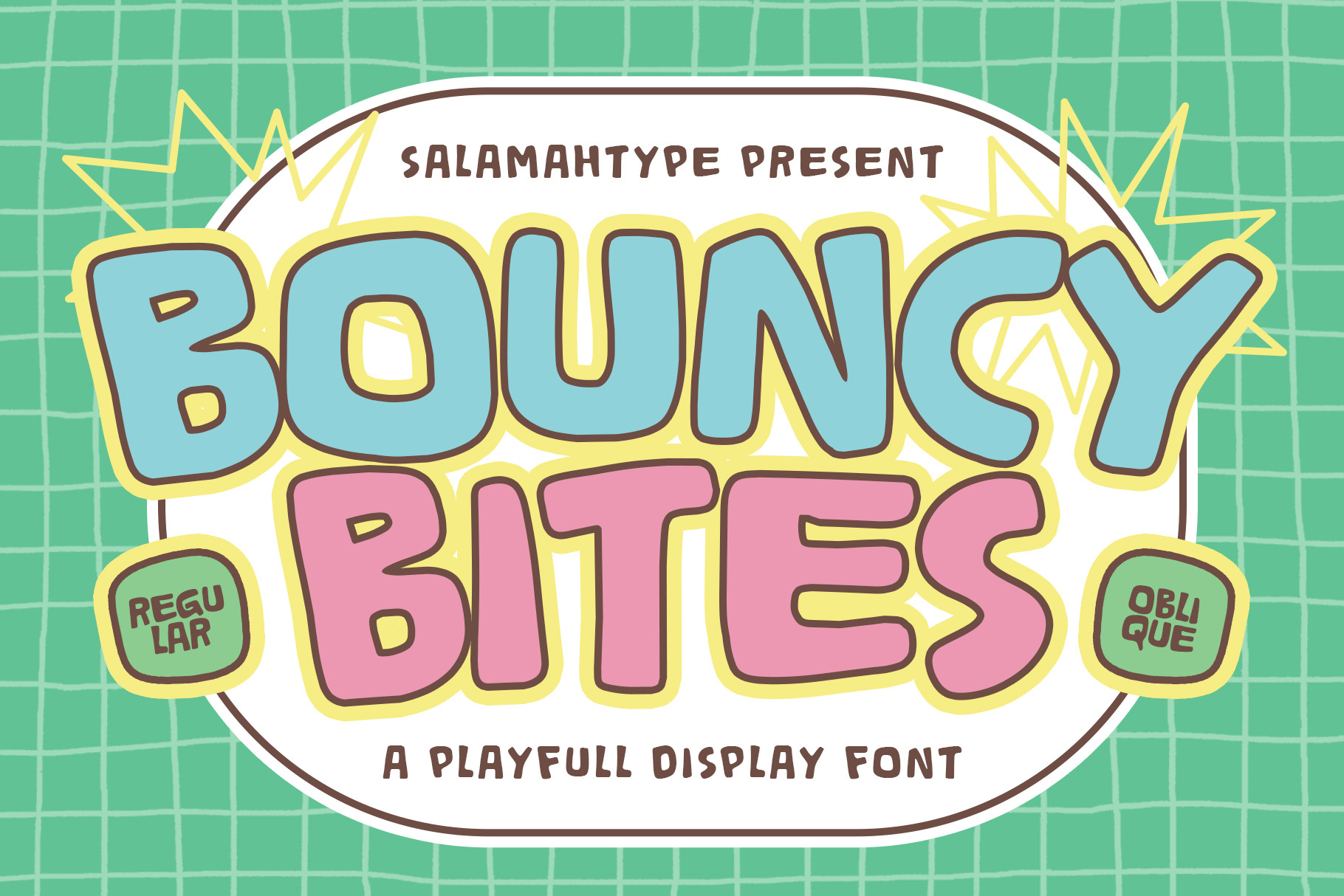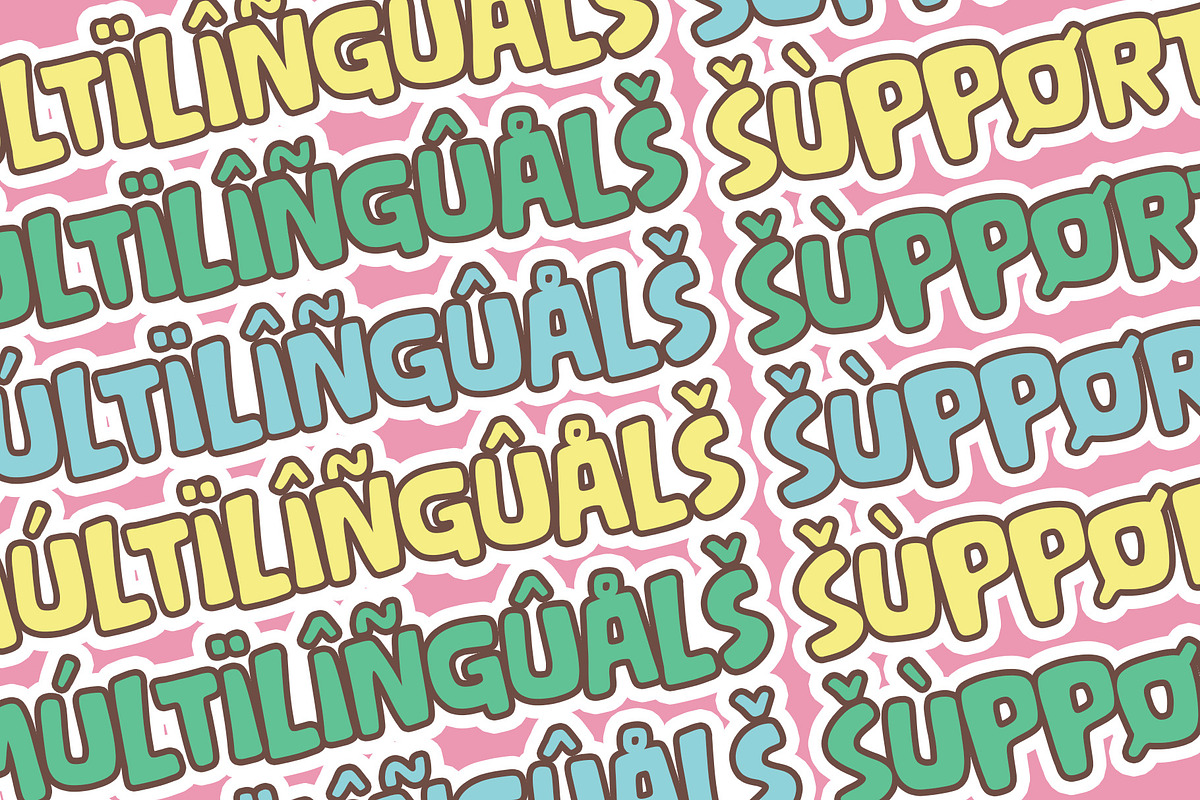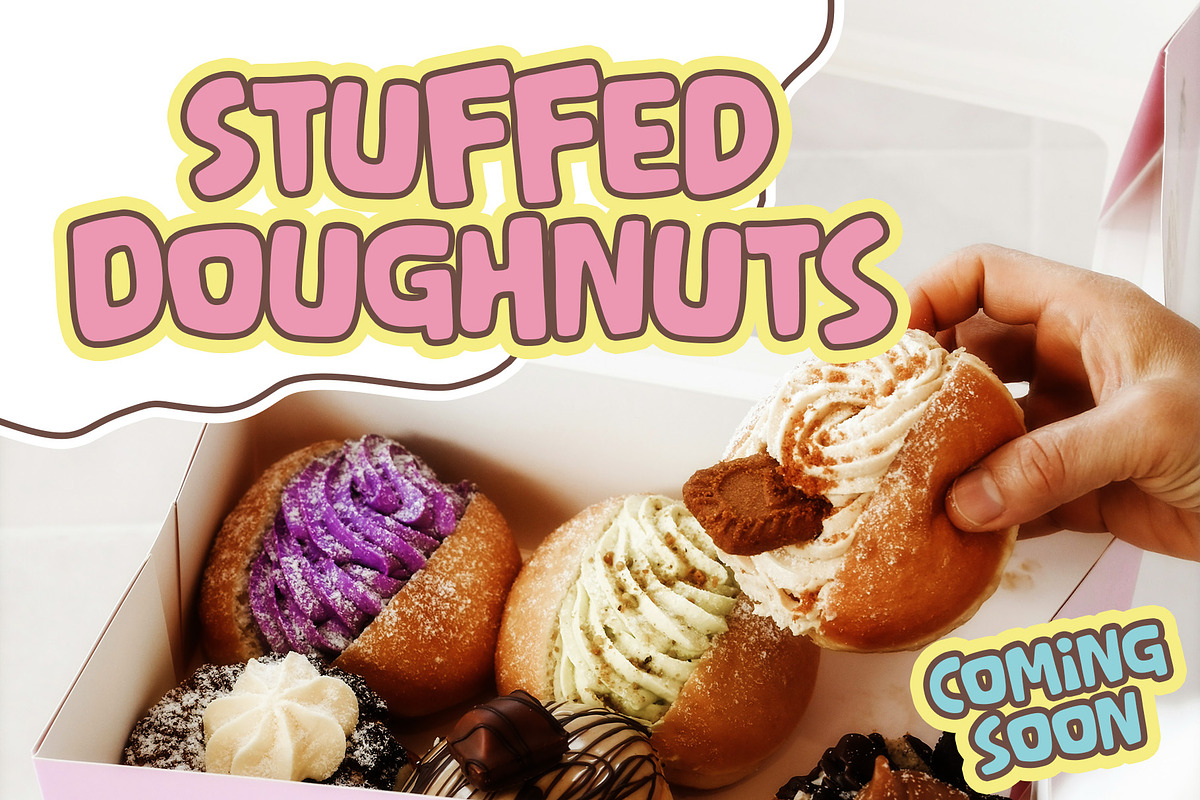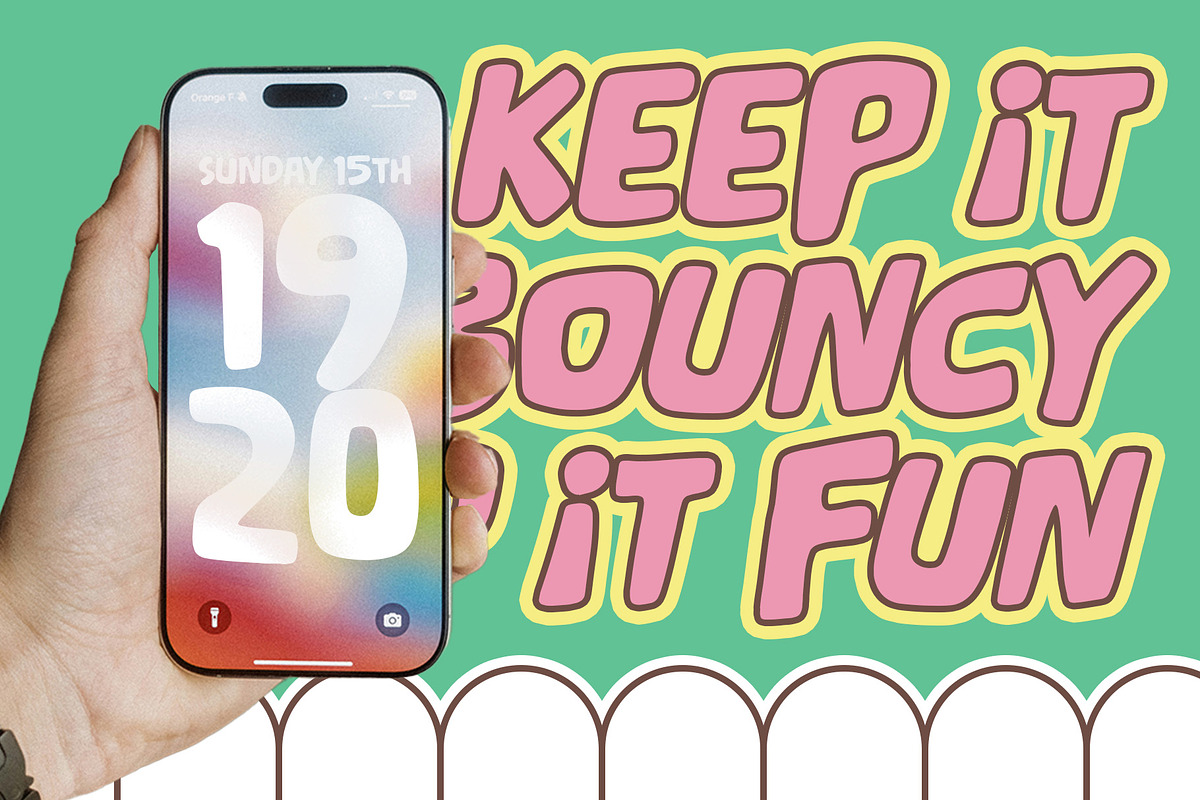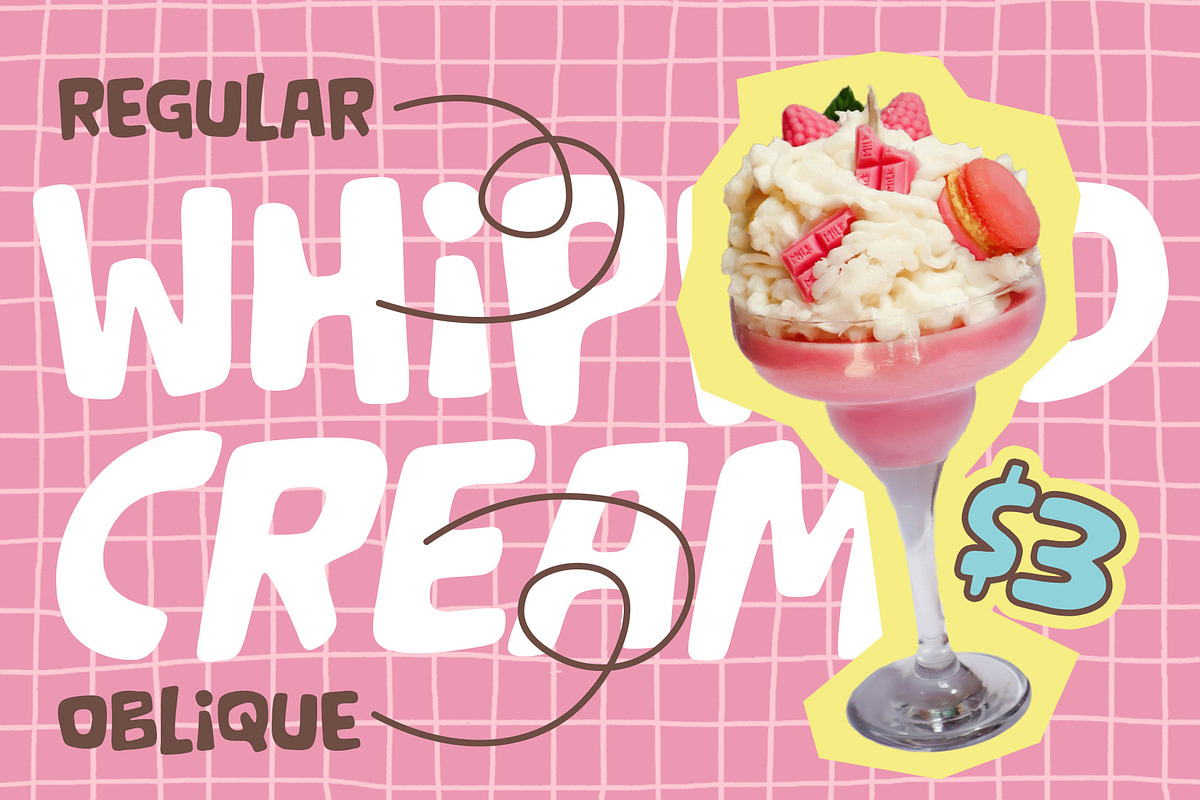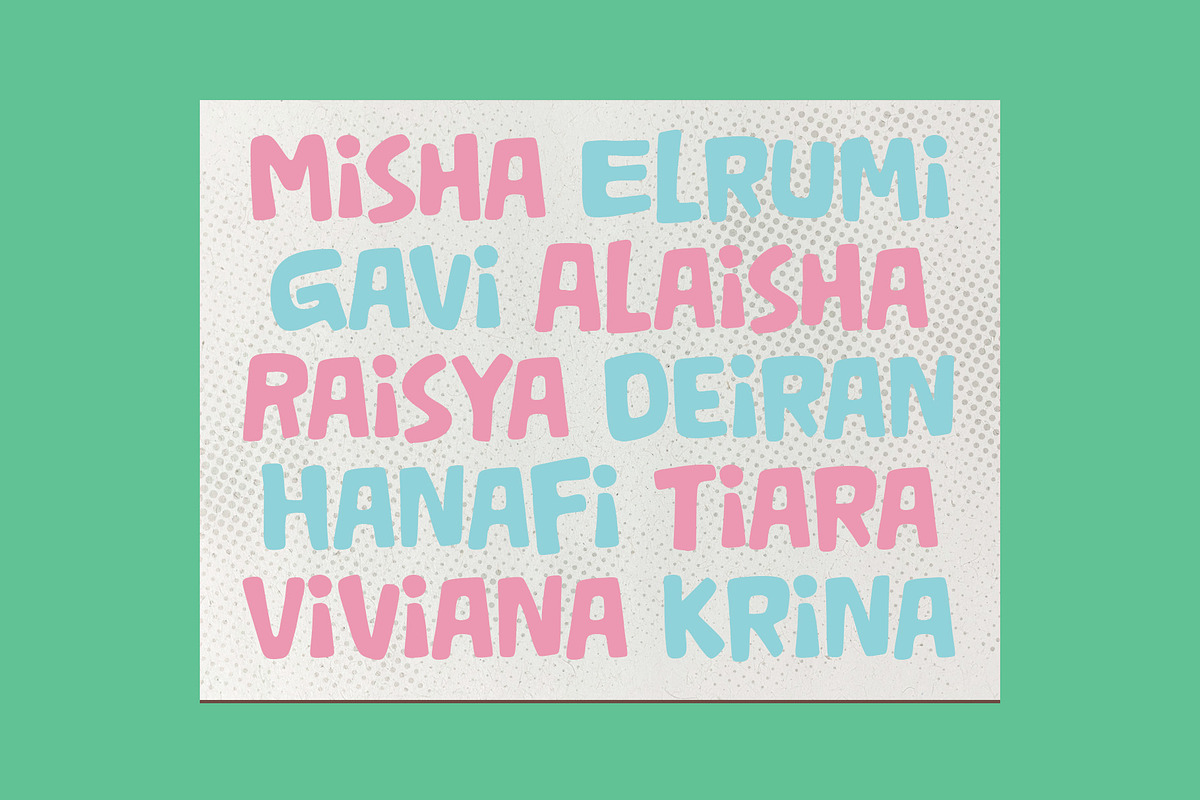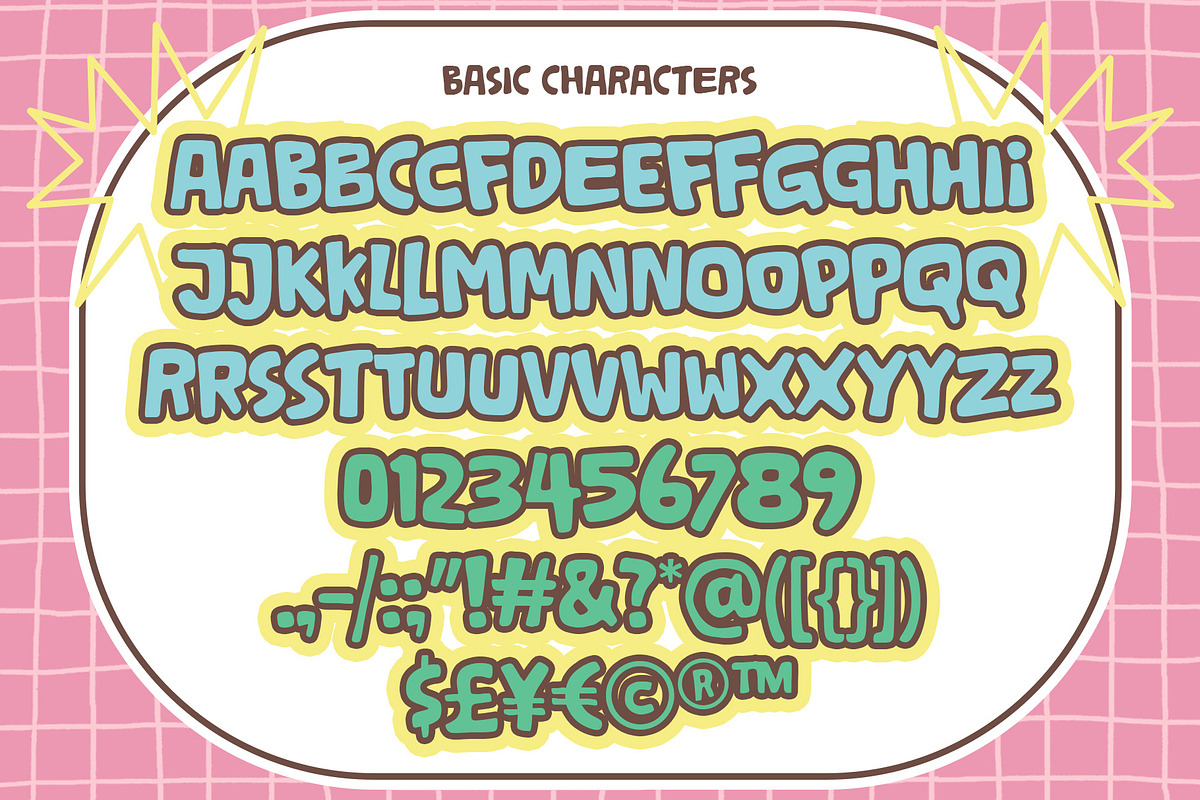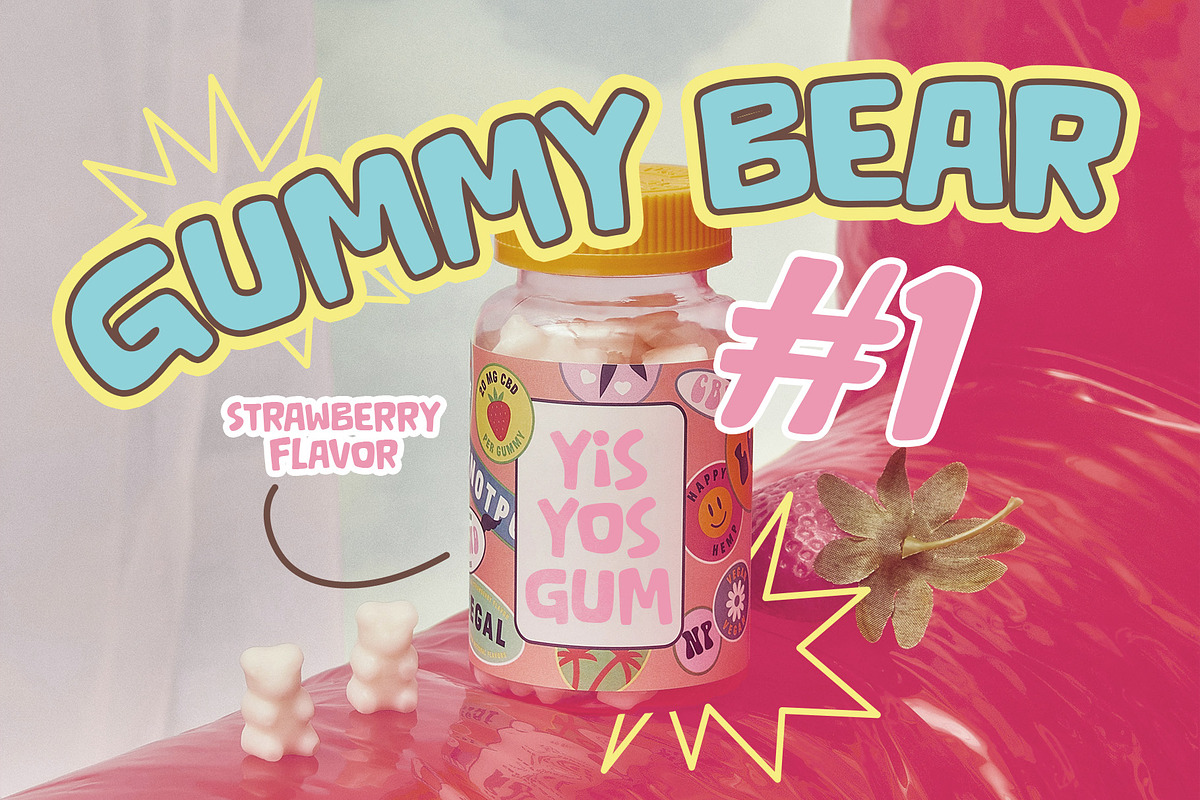
Bouncy Bites – Playful Font
ay hello to Bouncy Bites – a playful display font with chunky shapes, soft curves, and a fun retro vibe! Designed to make your projects look cheerful and eye-catching, this font is perfect for playful branding, food packaging, posters, kids projects, social media, and more.
With its bold rounded style and handcrafted feel, Bouncy Bites delivers a cute and energetic personality that works beautifully on both digital and print designs. The package includes Regular and Oblique styles to give your typography extra movement and flexibility.
Bouncy Bites Regular
Bouncy Bites Oblique
Kids products
Bakery & snack branding
Fun logo designs
Instagram posts
Posters & packaging
Cute merchandise
Creative quotes
Add a sweet and playful touch to your designs with Bouncy Bites!